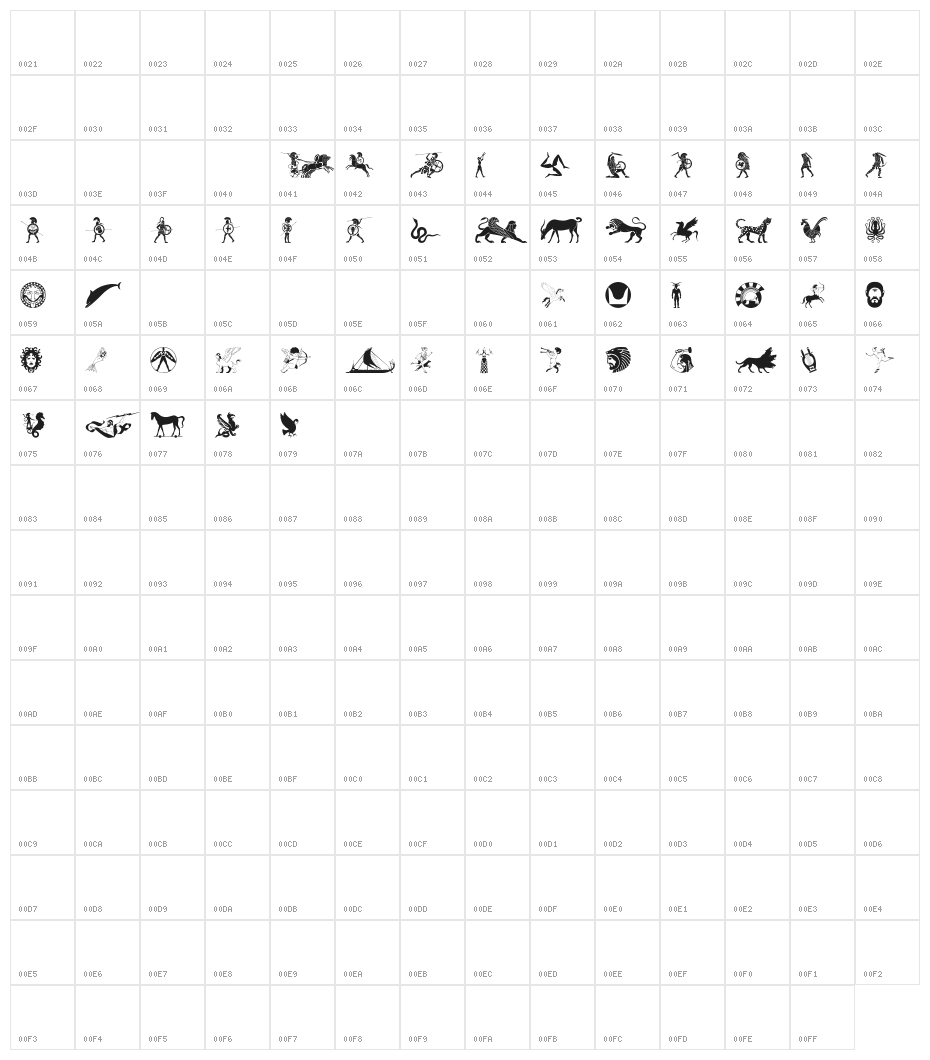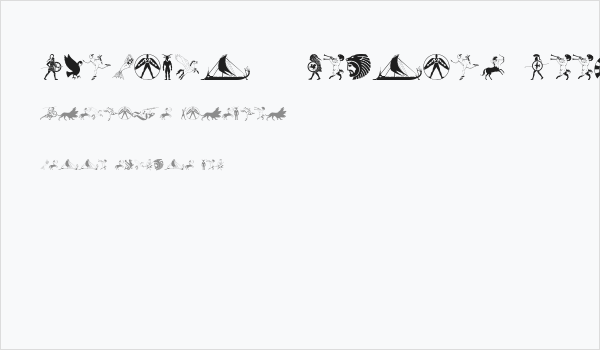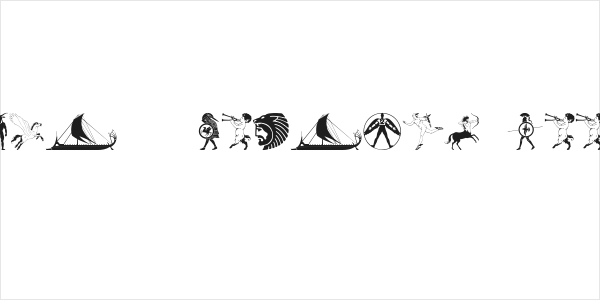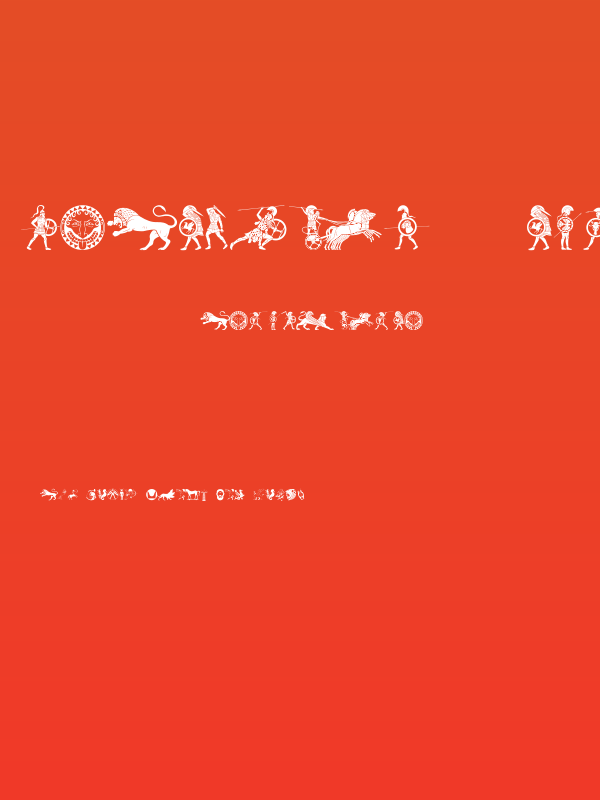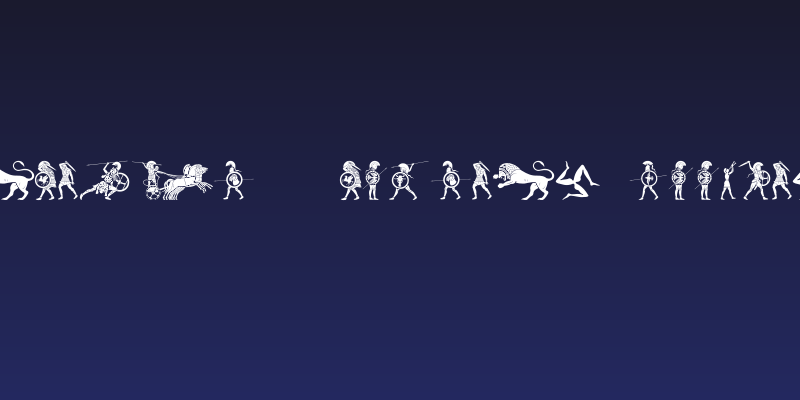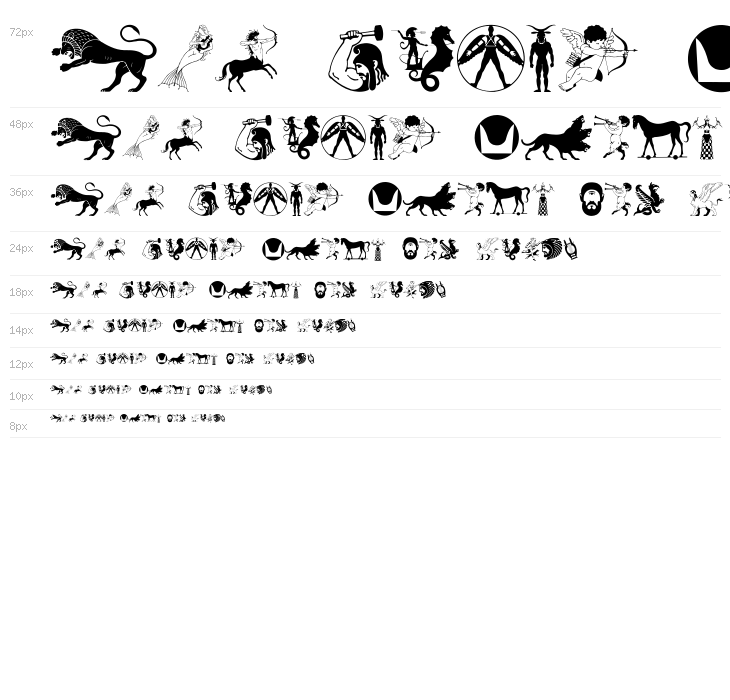
Mythical & Hoplite Noodgies Font
Mythical & Hoplite Noodgies Description
This is a decorative font featuring a series of intricate and detailed illustrations inspired by ancient mythology and hoplite warriors. Each character is represented by a unique image, including warriors in various poses, mythical creatures, and ancient symbols. The style is reminiscent of classical Greek art, with strong lines and a sense of movement. The images are highly detailed, capturing the essence of mythological tales and historical battles, making it suitable for projects that require a touch of antiquity and storytelling.
| Use Case | Logos, Decorative elements, Themed designs |
| Proposed Projects | Ideal for themed event posters, historical book covers, educational materials on ancient history, and decorative elements in graphic design projects. |